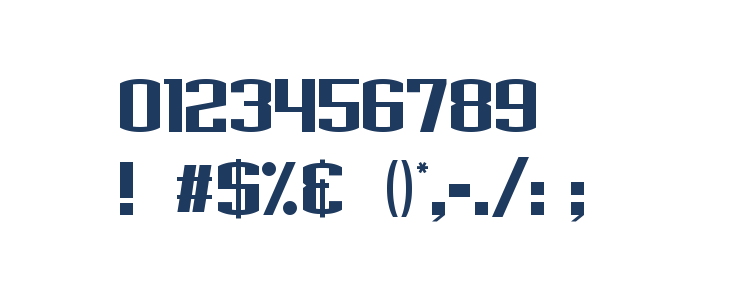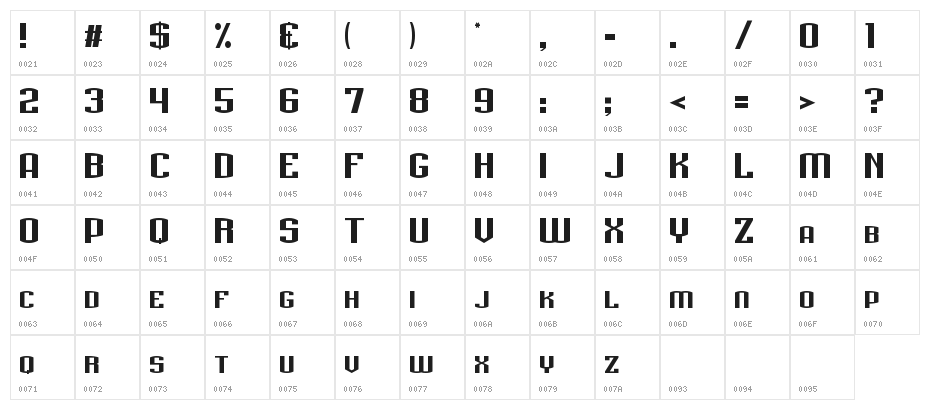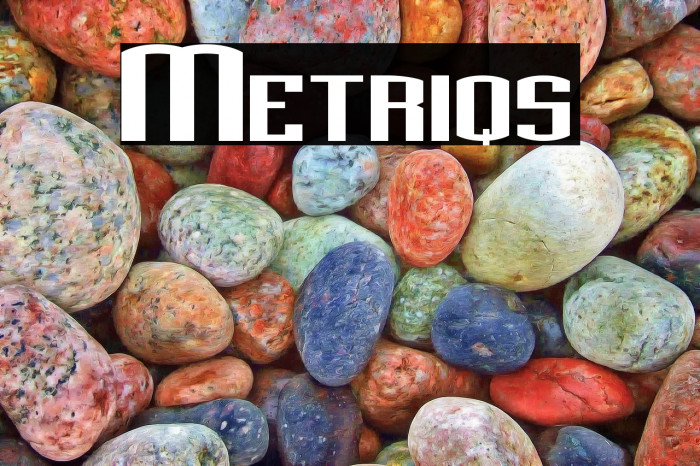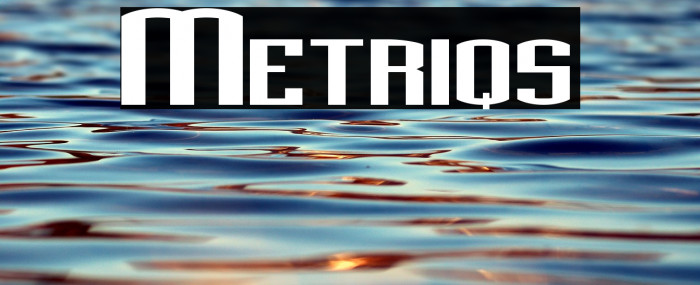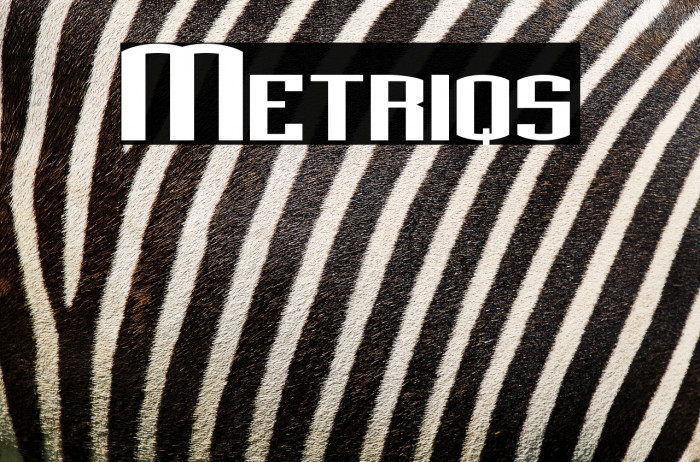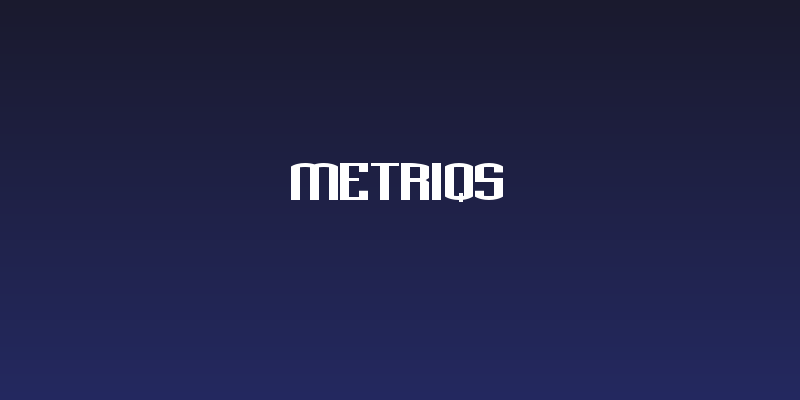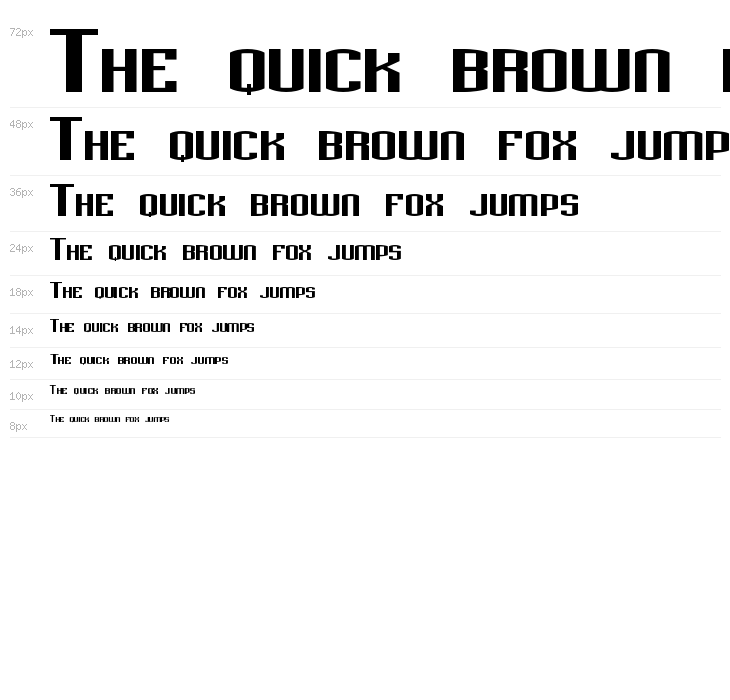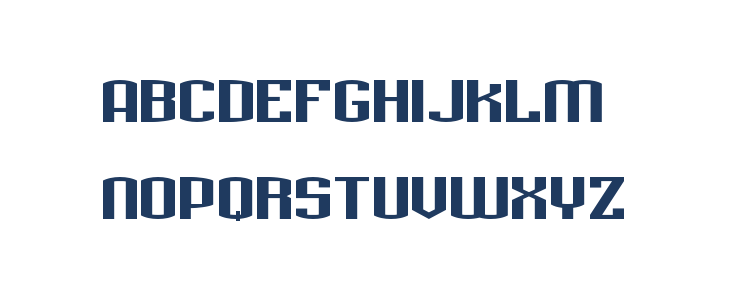
Metriqs Font
Metriqs Description
This font features a bold and geometric design, characterized by its strong, angular lines and uniform stroke width. The uppercase letters have a distinctive, blocky appearance, while the lowercase letters maintain a similar style, ensuring consistency throughout. The numerals are equally bold, making them stand out prominently. Special characters are designed with the same attention to detail, providing a cohesive look across all elements. The overall aesthetic is modern and industrial, making it suitable for projects that require a strong visual impact.
| Proposed Projects | Ideal for branding, posters, headlines, and any design requiring a strong, impactful typeface. |